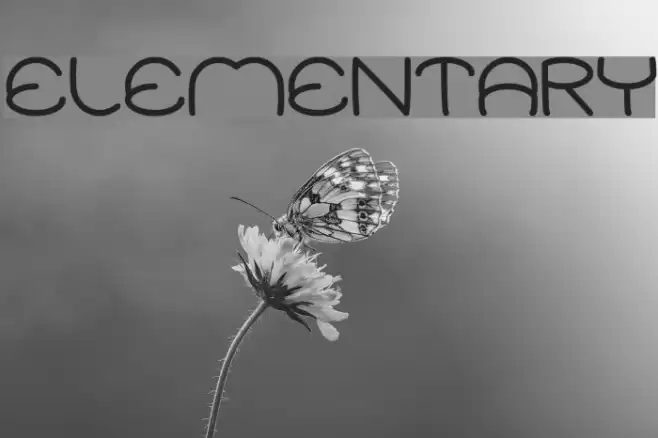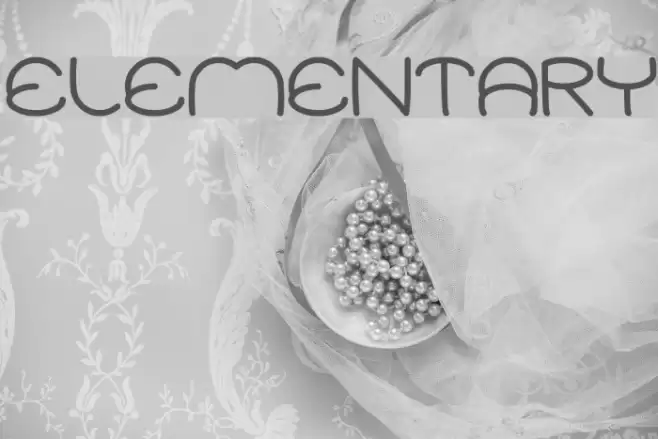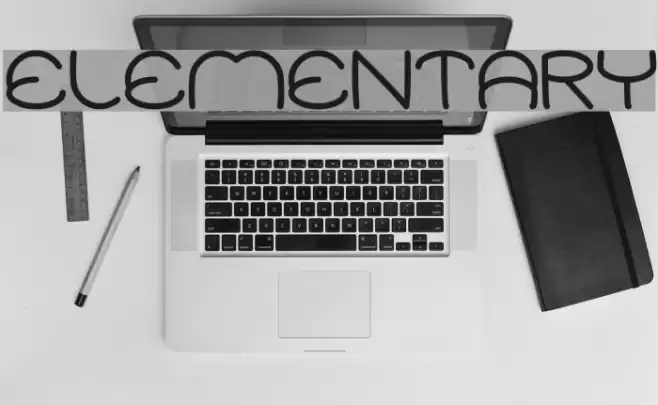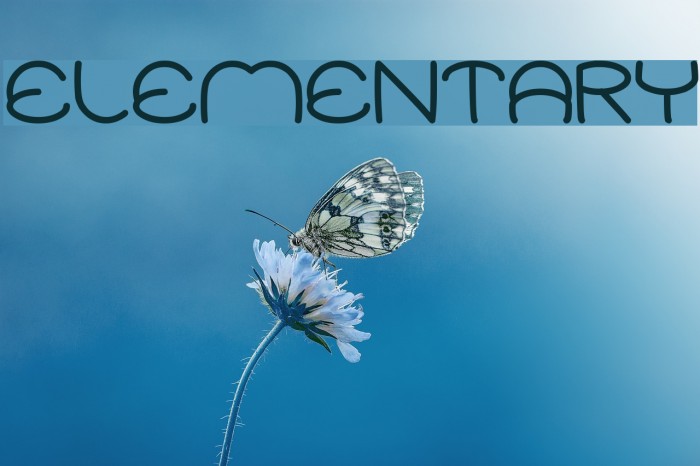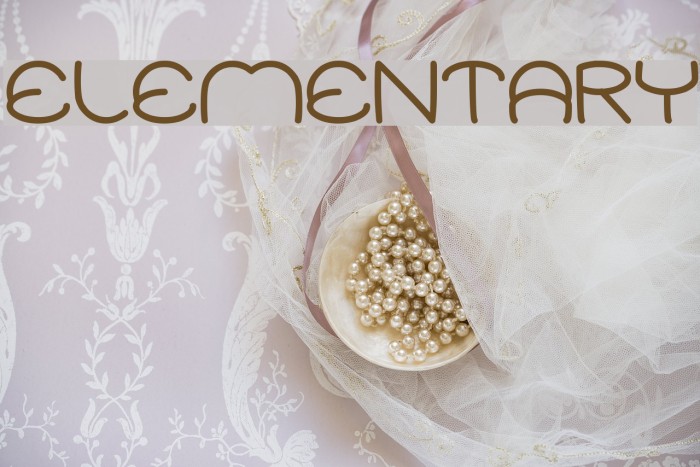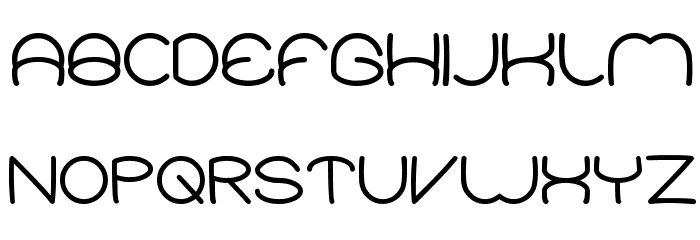
ELEMENTARY Font
ELEMENTARY Description
This font features a playful and rounded design, characterized by its unique looped and curved elements. The letters have a consistent stroke width, giving it a uniform appearance. The overall style is modern and slightly whimsical, making it suitable for creative and informal applications. The uppercase letters have a distinct, almost bubble-like quality, while the lowercase letters maintain a similar style, ensuring cohesion across different text cases. The font's design is approachable and friendly, making it ideal for projects that require a touch of personality and charm.
A playful, rounded font with looped elements and consistent stroke width from Uncategorized fonts.
- Proposed Projects: Ideal for children's books, playful branding, greeting cards, and creative posters.